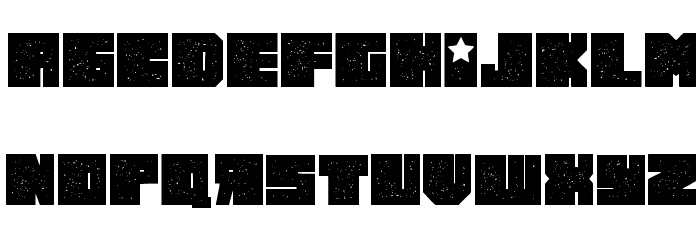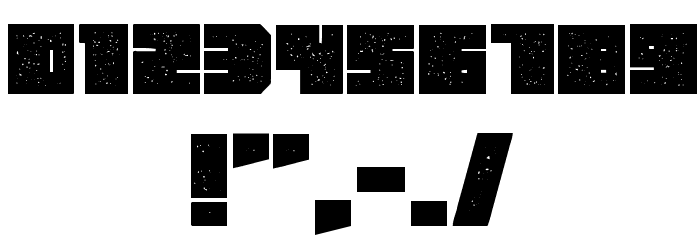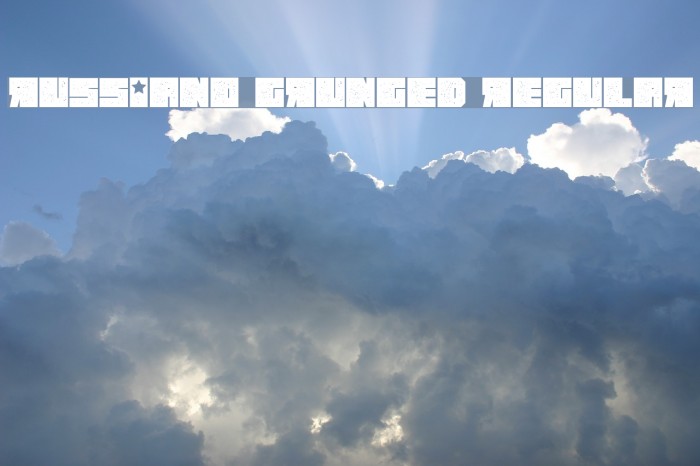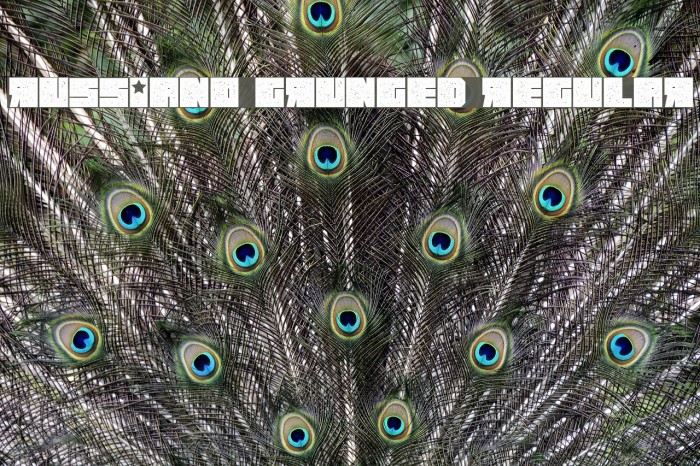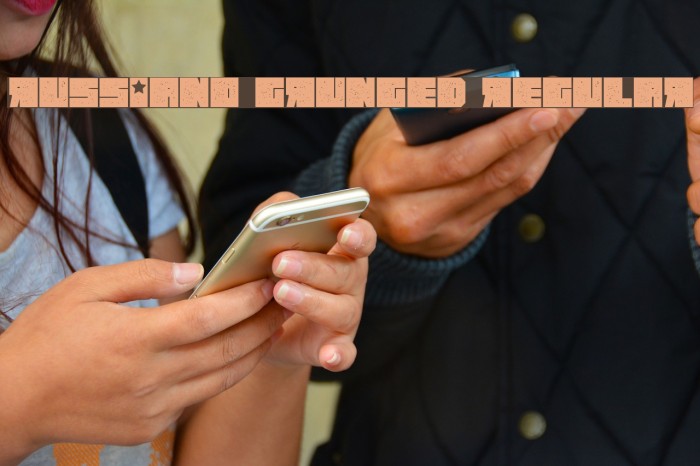
Russiano Grunged Regular Font
This font features a bold, blocky design with a distressed, grunge texture that gives it a rugged and edgy appearance. The characters are uniformly wide, creating a strong and impactful visual presence. The texture within each letter adds a sense of depth and character, making it suitable for designs that require a bold statement. The uppercase and lowercase letters maintain a consistent style, while the numbers and special characters follow the same textured pattern, ensuring a cohesive look across all elements.
A bold, grunge-textured font with a strong, blocky design.
- Proposed Projects: Ideal for posters, album covers, urban-themed designs, and any project requiring a bold, gritty aesthetic.
- Overall Style: Grunge, Urban, Edgy